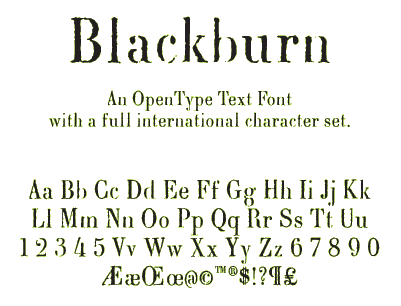
Blackburn is one of a series of fonts intended for use at small sizes to capture the feel of vintage letterpress printing. This font was inspired by a printed sample of French type dating from the turn of the twentieth century.